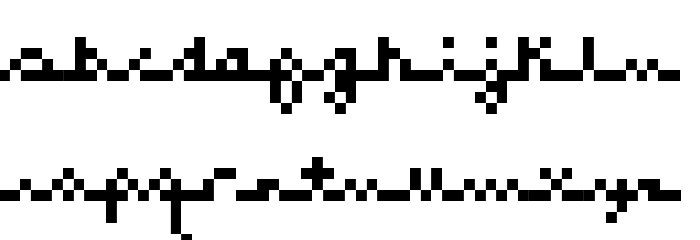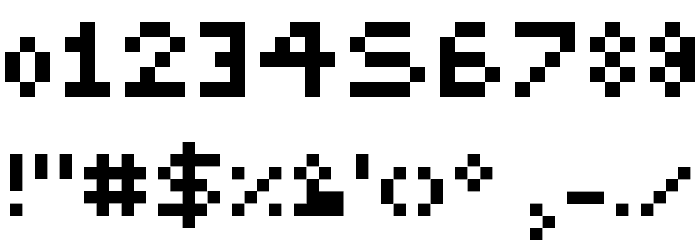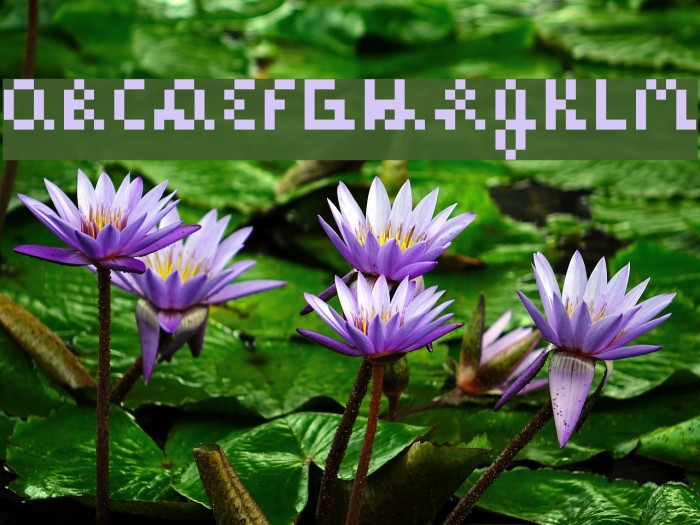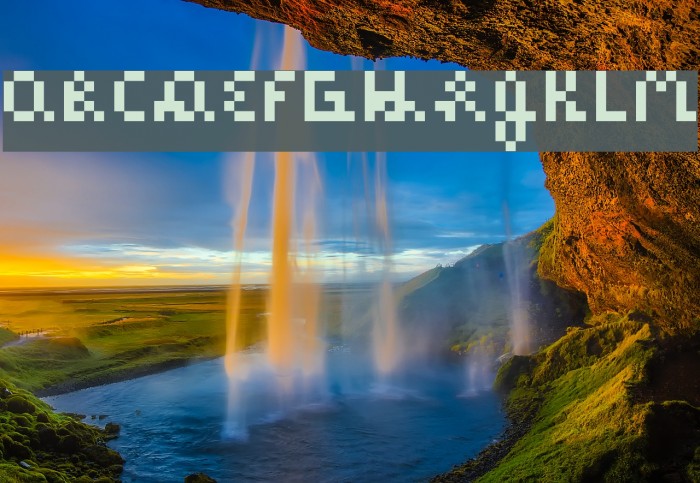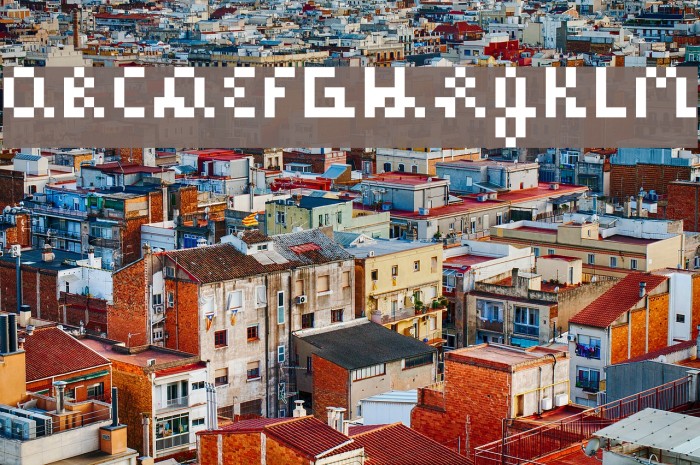
Alicia Marie Regular Font
This font features a pixelated, blocky design reminiscent of early digital or video game typography. Each character is composed of small, square blocks that create a distinct, retro aesthetic. The uppercase and lowercase letters maintain a consistent height, contributing to a uniform appearance. Numbers and special characters follow the same pixelated style, ensuring cohesion across all elements. The font's simplicity and geometric nature make it highly legible, even at smaller sizes. Its nostalgic feel is ideal for projects that aim to evoke a sense of vintage digital technology or gaming culture.
A pixelated, retro-style font with a blocky, digital appearance.
- Proposed Projects: Ideal for video game design, retro-themed posters, digital art projects, and any work requiring a nostalgic digital aesthetic.
- Overall Style: Vintage
- Use Case: Logos, Headlines, Digital Art